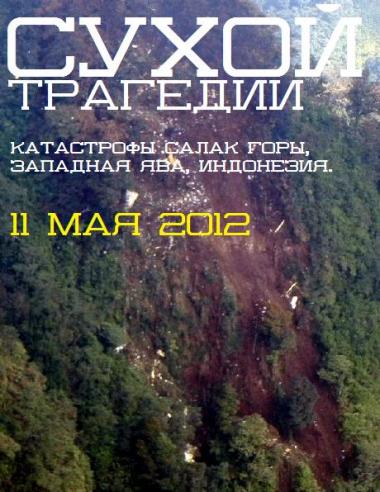
Very nice! Simple but unique, I especially like K and Q. I think the bottom 7 and ? could be more centered, maybe Q's tail too. And the diagonal in 2 could be slightly higher, like in Z.
Cloned it to take a closer look, apparently Q's tail can't be centered (or the diagonal in N). Maybe you could consider making another version with slightly different proportions.
Also, the inner bottom right curve on @ could be one brick to the right.
Still some suggestions: 4's bar one brick higher, and a top right curve to 5. :)
Spend some more time on W. Great font!
Nice! Very nice!
A great bit of minimalist slabbery :) I think the X would look better if it was inverted, so that the smaller half is at the top. Maybe it could be a wee bit thinner too (to match the other diagonals). Still well worth 10/10
Simple, but strong slabber, agree with p2pnut on X.
I should download this, for it has cyrillics, special thanks for making them.
@four: Yeah, I'm still thinking about how to make X thinner... : '
I miss that one, this is a strong work here, the cyrillic are amazing and unique. love it
Every glyph has its own unique,fun personality. Maybe change Y?
@winty5: Thanks! Actually I'm a bit sure about Y but can't make better Y. I'm just stuck.
Maybe this kind of "Y" and "?":